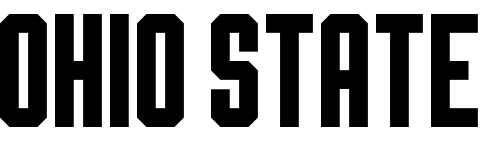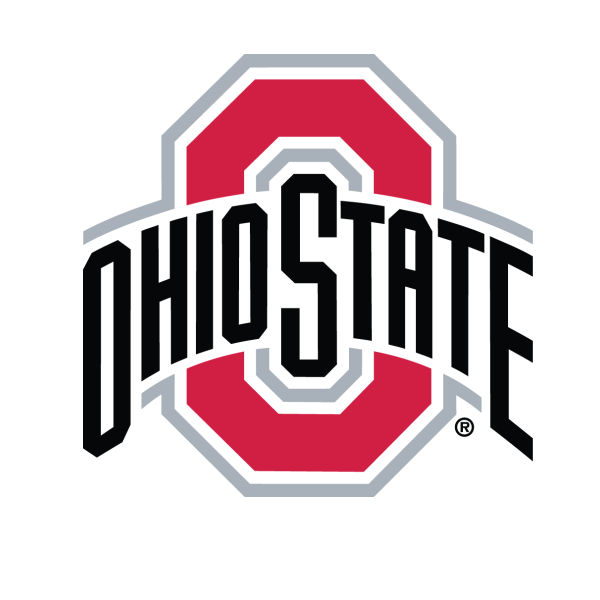
Ohio State Buckeyes Font
Fonts in UseOhio State Buckeyes are a collegiate athletic program representing The Ohio State University, known for its successful football team and overall competitive performance across various sports.
The Ohio State logo showcases "Ohio State" in black text overlaid on a red initial "O." Fans have created a font called Ohio Collegiate that mimics this lettering style, designed by Geronimo. It is available for free download in the Fonts Used Section.